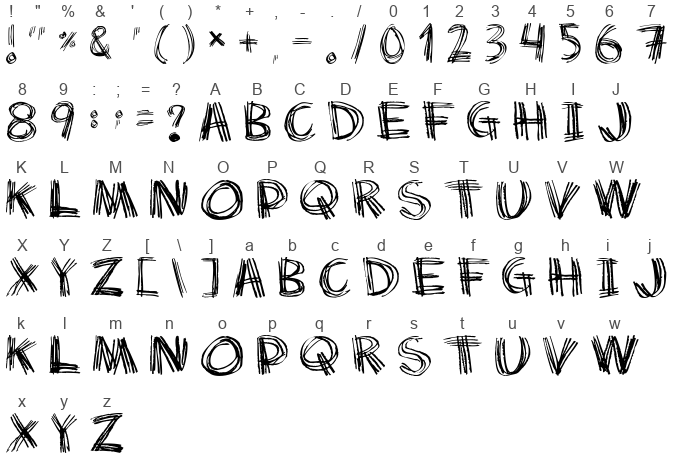
The "Scratch my back" font by PizzaDude is an intriguing and playful typeface that immediately captures your attention with its unique charm and personality. Designed to evoke a sense of casual creativity and spontaneous artistry, this font resembles the hand-drawn scribbles and scratches that one might find in the margins of a notebook, full of life and kinetic energy. The irregularities in the letterforms and the varying line weights mimic the natural variations of handwriting, giving text a dynamic and approachable feel.
Each letter in the "Scratch my back" font appears as if it were crafted with a sense of individuality, yet when brought together, they harmonize into an aesthetically pleasing cacophony of shapes and curves. This disarming imperfection lends the font a human touch that is both endearing and engaging, making it particularly effective for projects that aim to be playful, informal, or geared towards a young audience. It's the perfect choice for designers looking to inject a dose of whimsy and fun into their work, whether it be for party invitations, children's books, or quirky branding projects.
PizzaDude, known for creating fonts with character and a distinct sense of lightheartedness, has imbued "Scratch my back" with a lively spirit that encourages creativity and imagination. This font doesn't just communicate words; it tells stories, making it a tool not just for designers, but for storytellers, educators, and artists who want to add a touch of personal flair and warmth to their projects. Its versatility and charm make "Scratch my back" a wonderful addition to any font collection, ready to bring a smile and a spark of inspiration to a wide range of creative endeavors.
Scratch my back